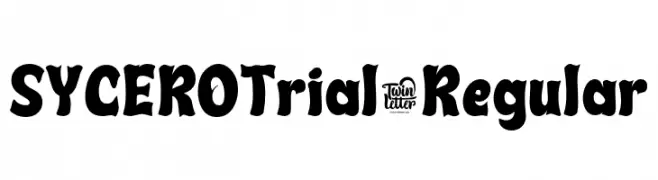
A bold, sporty font with integrated ball motifs for a playful and energetic look.
A bold, playful font with book-themed characters, perfect for educational and children's projects.
A bold, rounded font with a playful dotted pattern, perfect for creative projects.
A playful, bold font with leaf-like accents on each character, perfect for fun and creative projects.
A bold, playful font with paper plane decorations, perfect for creative projects.
A playful, ruler-themed font with bold, rounded letters and medium contrast.
A bold, playful font with rounded, thick strokes and a whimsical style.
A bold, playful font with thick, rounded strokes and a hand-drawn feel.
A playful, rounded font with bold, smooth curves and a friendly appearance.
A bold, playful font with rounded edges and a smooth, flowing style.